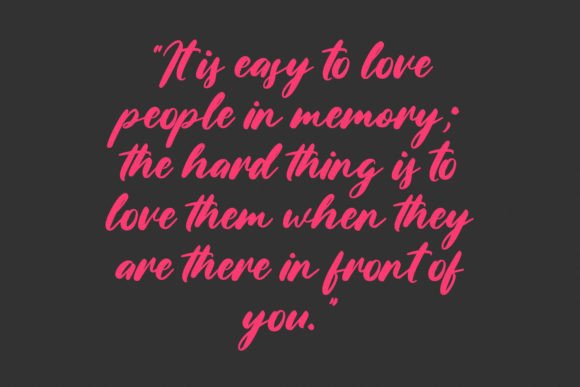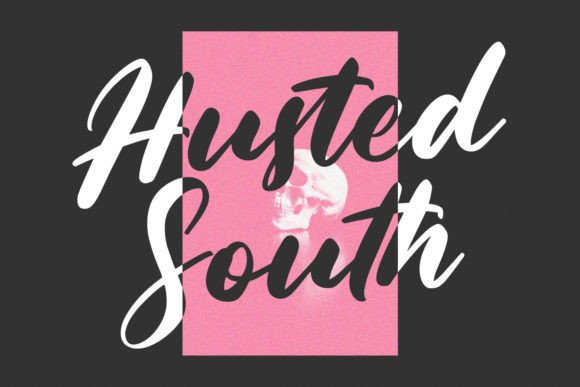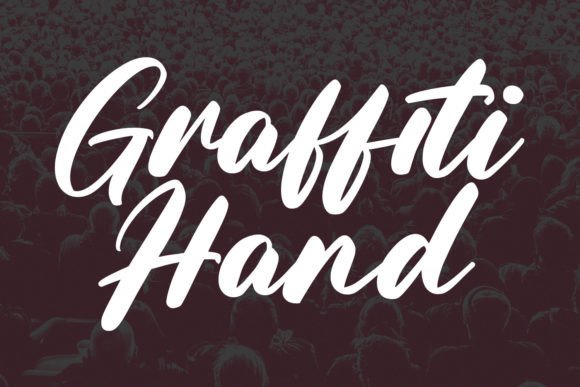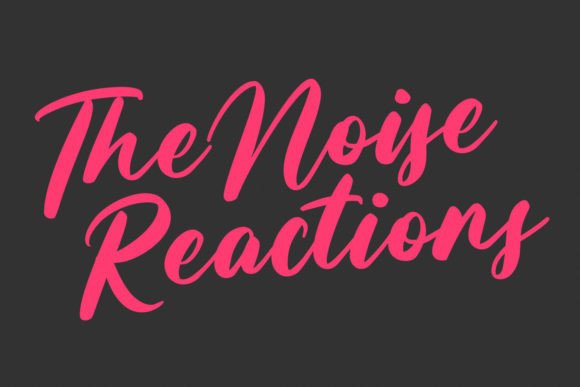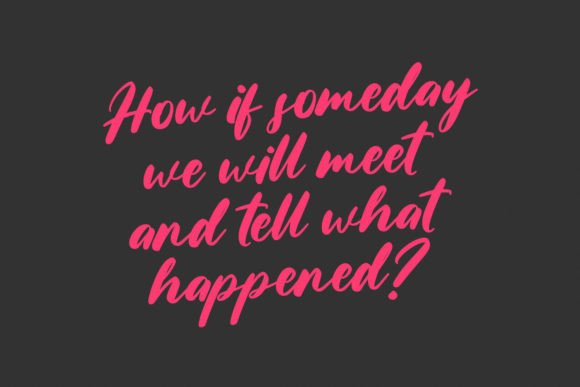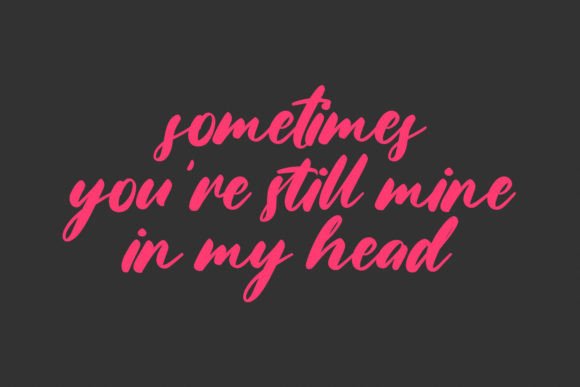
The Ultimate Guide to Grathes Font: Elevate Your Designs with this Versatile Script Font
I’ll never forget the time I was working on a wedding invitation project, and I just couldn’t seem to find the perfect font. My client wanted something elegant, yet casual; bold, yet playful. I scoured the internet, tried out countless fonts, but nothing seemed quite right. That was until I stumbled upon Grathes Font. ✨
As soon as I saw it, I knew I had found “the one.” Grathes is a casual and bold script font that has become a staple in my design toolkit. Its incredibly versatile style has won my heart, and I’m excited to share its beauty with you.
An Honest Review of Grathes Font
- ✅ Versatility: Grathes Font is perfect for a wide range of design projects, from wedding invitations and stationery to social media posts and more.
- ✨ Elegant yet Casual: This font strikes the perfect balance between elegance and playfulness, making it suitable for both formal and informal designs.
- 💥 High-Impact: Grathes Font is bold and eye-catching, guaranteed to make your designs stand out.
While Grathes Font is an amazing addition to any design project, there are a few things to keep in mind: 🤔
- ⚠️ Legibility at Small Sizes: Like many script fonts, Grathes can be a bit tricky to read at very small sizes. Make sure to test it out at different sizes to ensure it’s legible for your specific project.
- ⚠️ Limited Use in Body Text: While Grathes is perfect for headings and titles, it may not be the best choice for body text. Its bold and playful style can be overwhelming for longer blocks of text.
- Experiment with OpenType features like swashes and stylistic alternates to add more personality to your design.
The Backstory of Grathes Font
Grathes Font was designed with the intention of creating a beautiful, yet casual script font that could be used for a wide range of design projects. Its creator aimed to craft a font that was both elegant and playful, making it perfect for wedding invitations, stationery, and more. 💕
Q: Is Grathes Font suitable for body text?
A: While Grathes Font is stunning for headings and titles, it’s not ideal for body text due to its bold and playful style.
Q: Does Grathes Font come with OpenType features?
A: Yes, Grathes Font includes OpenType features like swashes and stylistic alternates, allowing you to add more personality to your designs.
Q: Is Grathes Font easy to read?
A: Grathes Font is generally easy to read, but like many script fonts, it can be tricky at very small sizes. Make sure to test it out before finalizing your design.